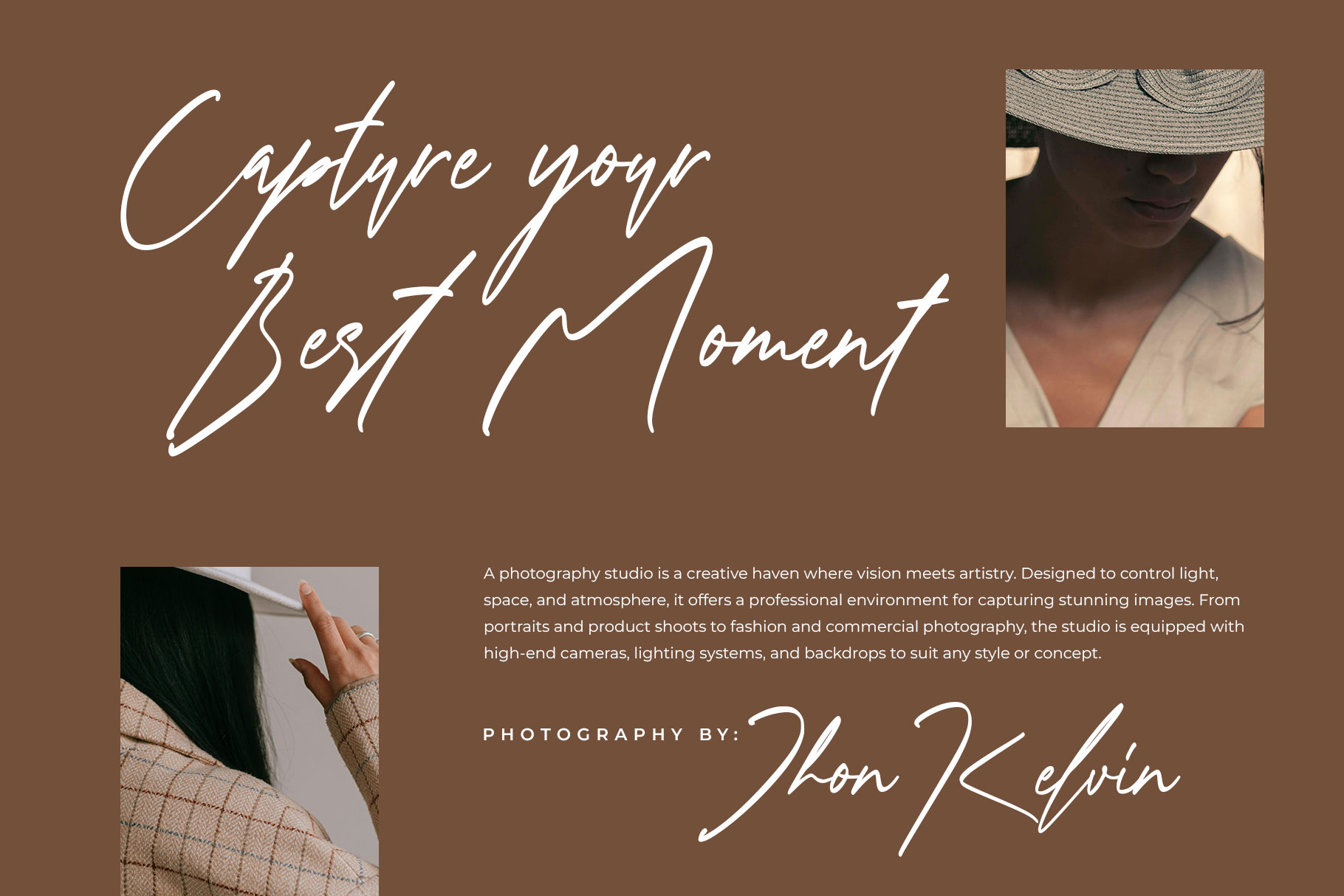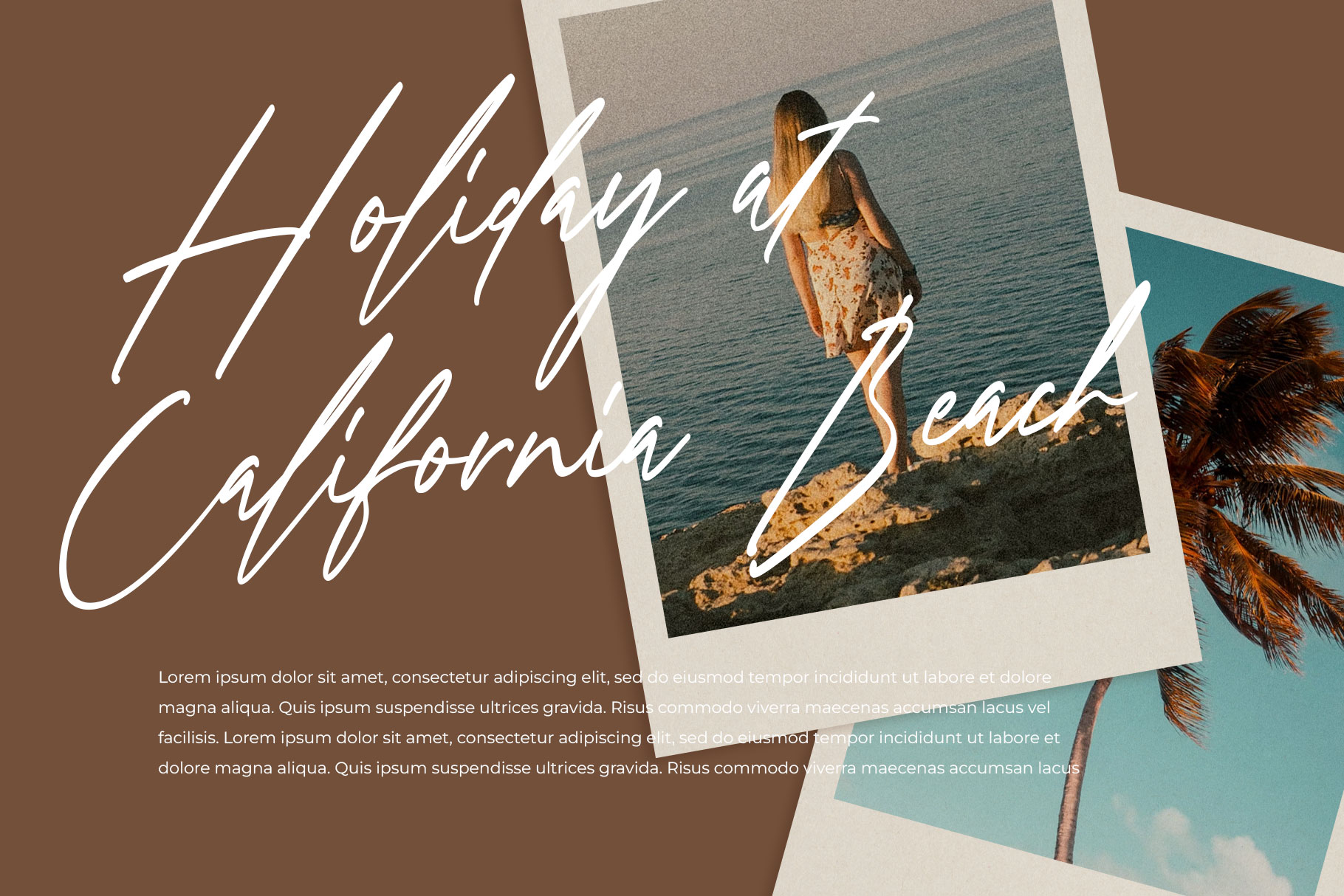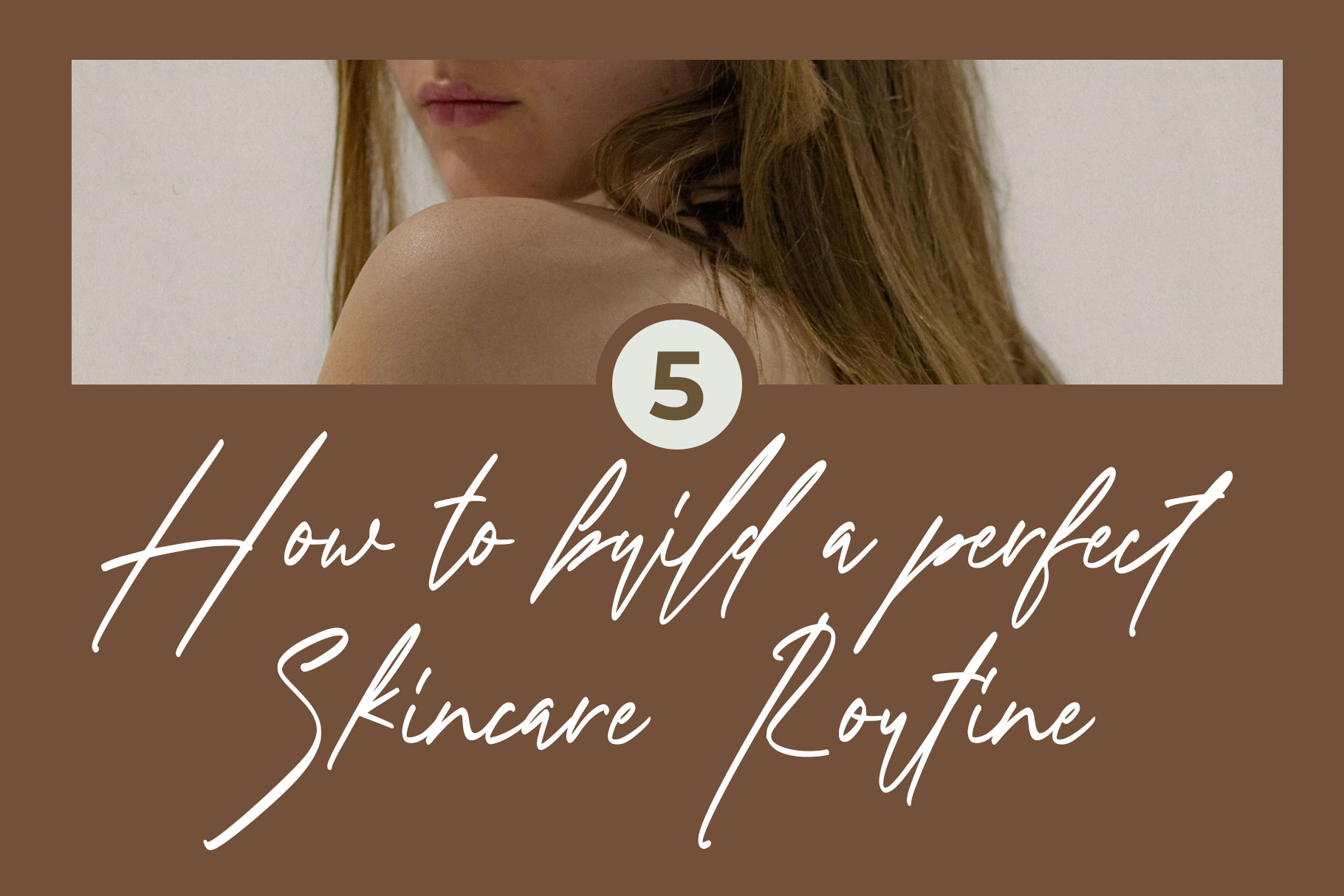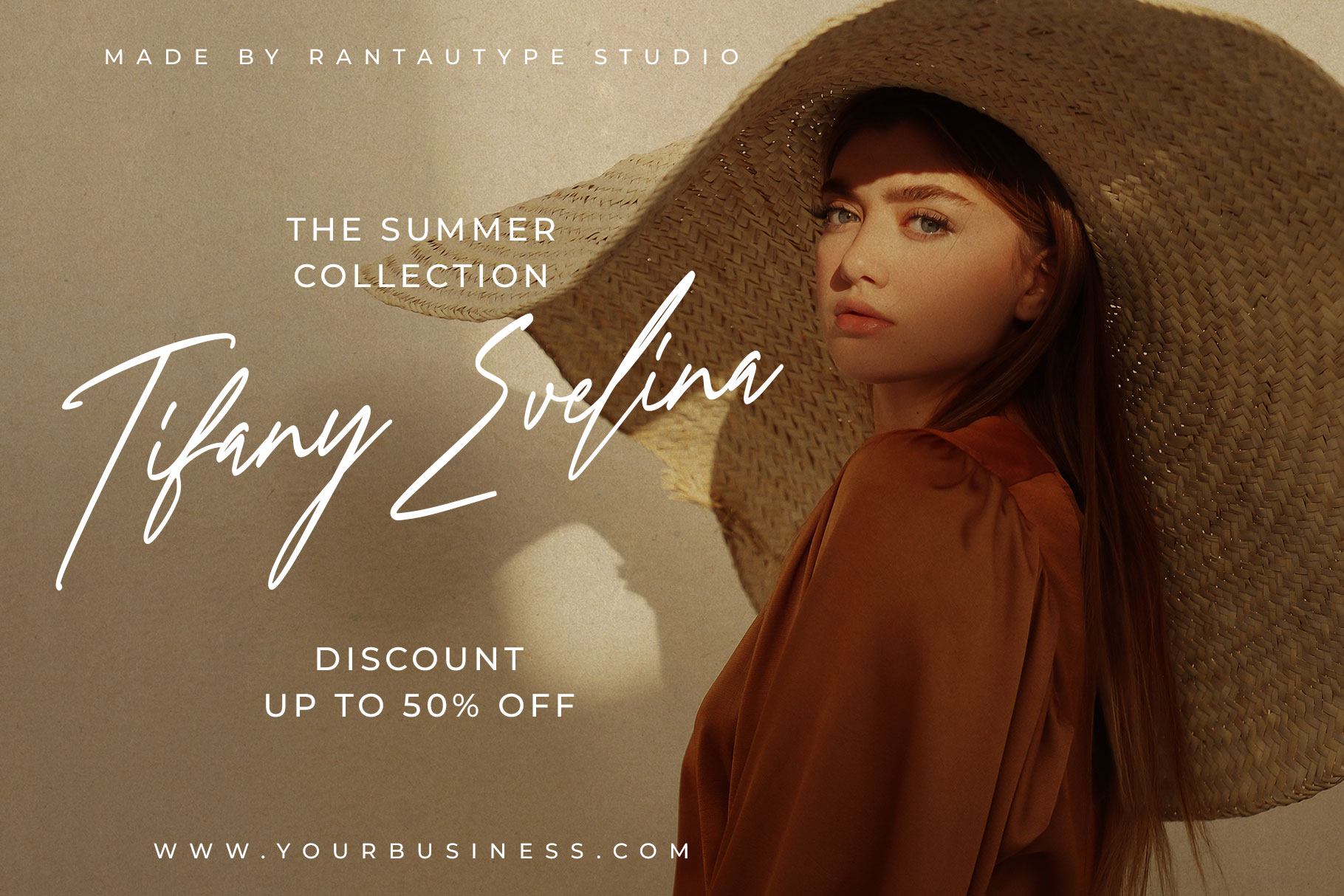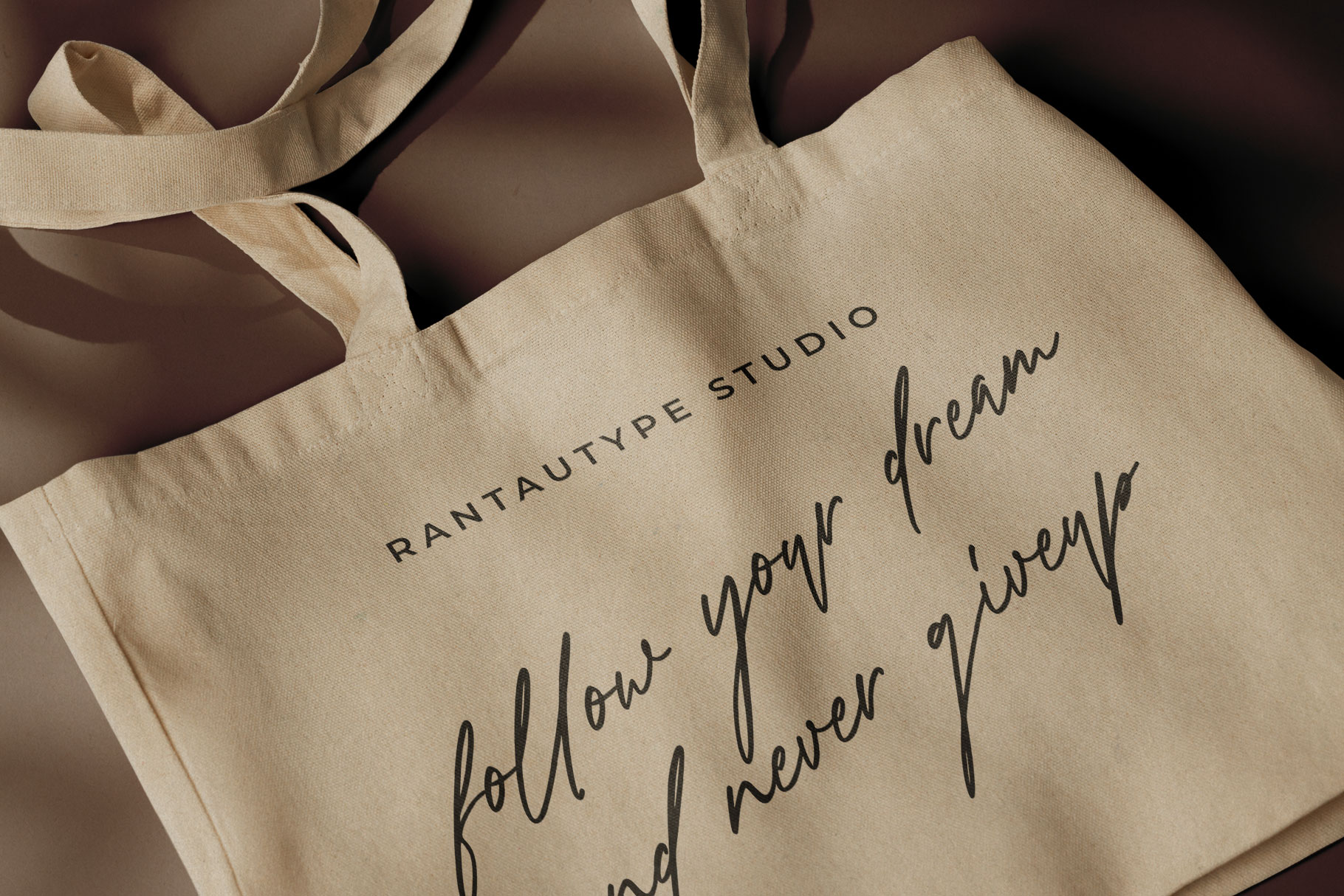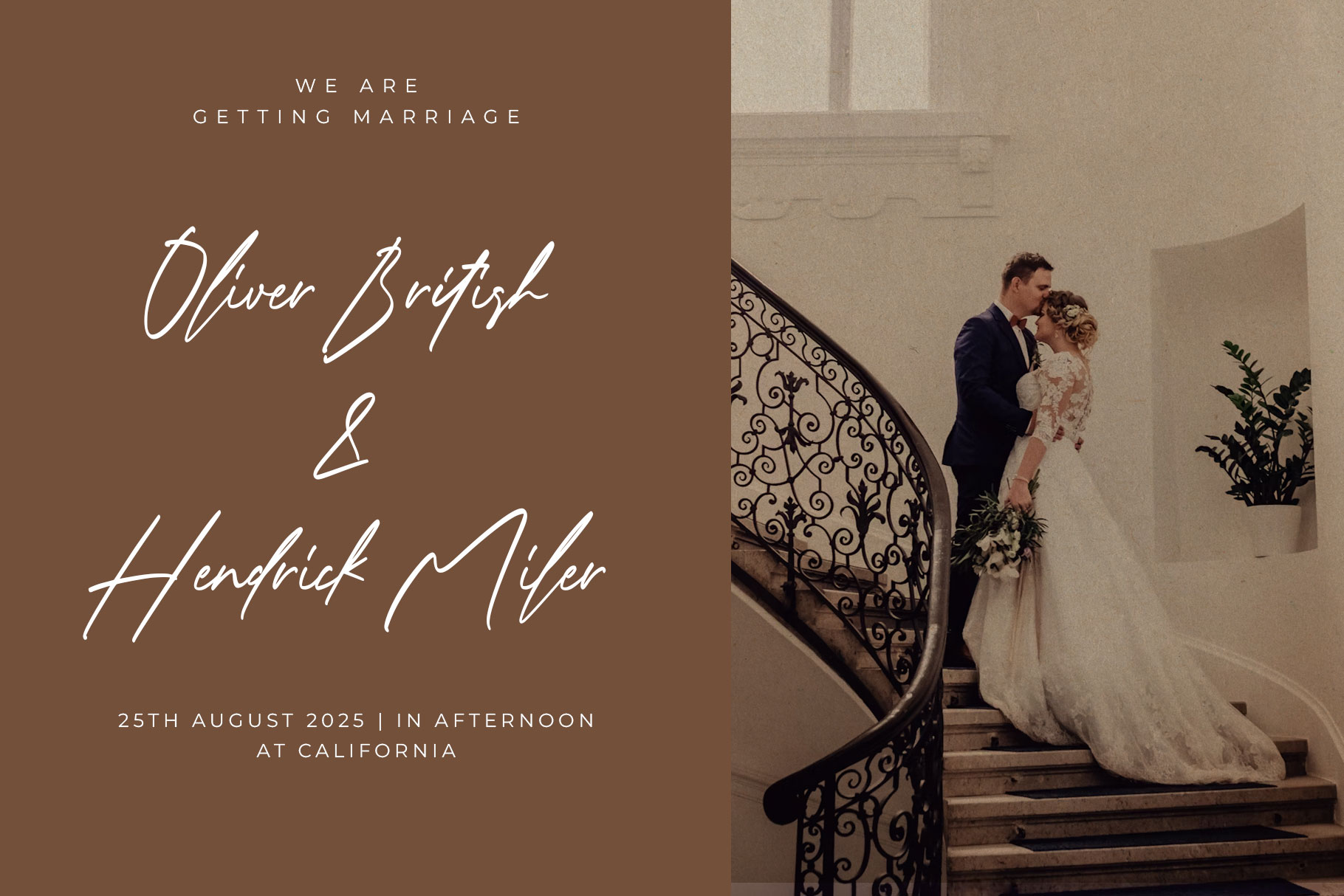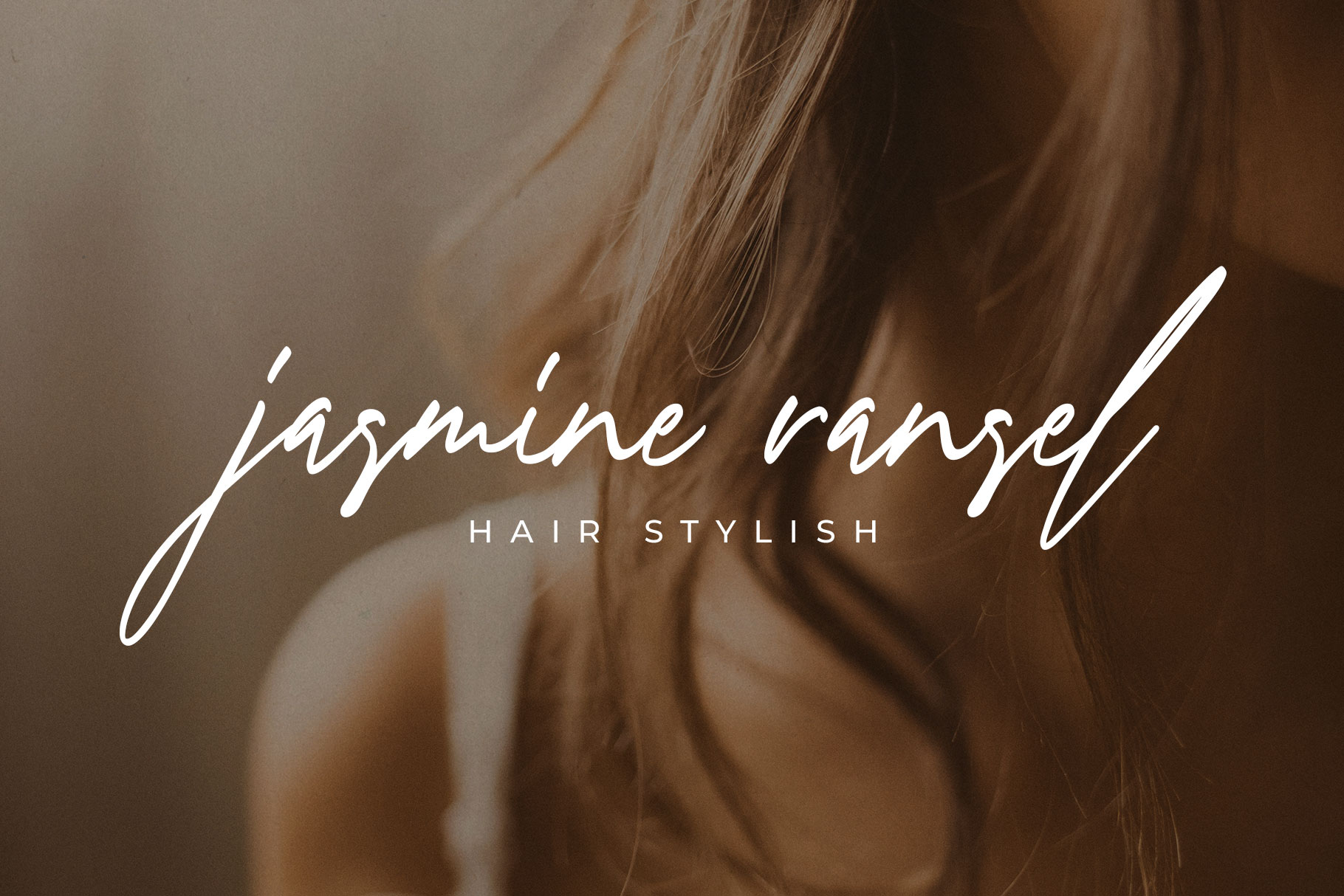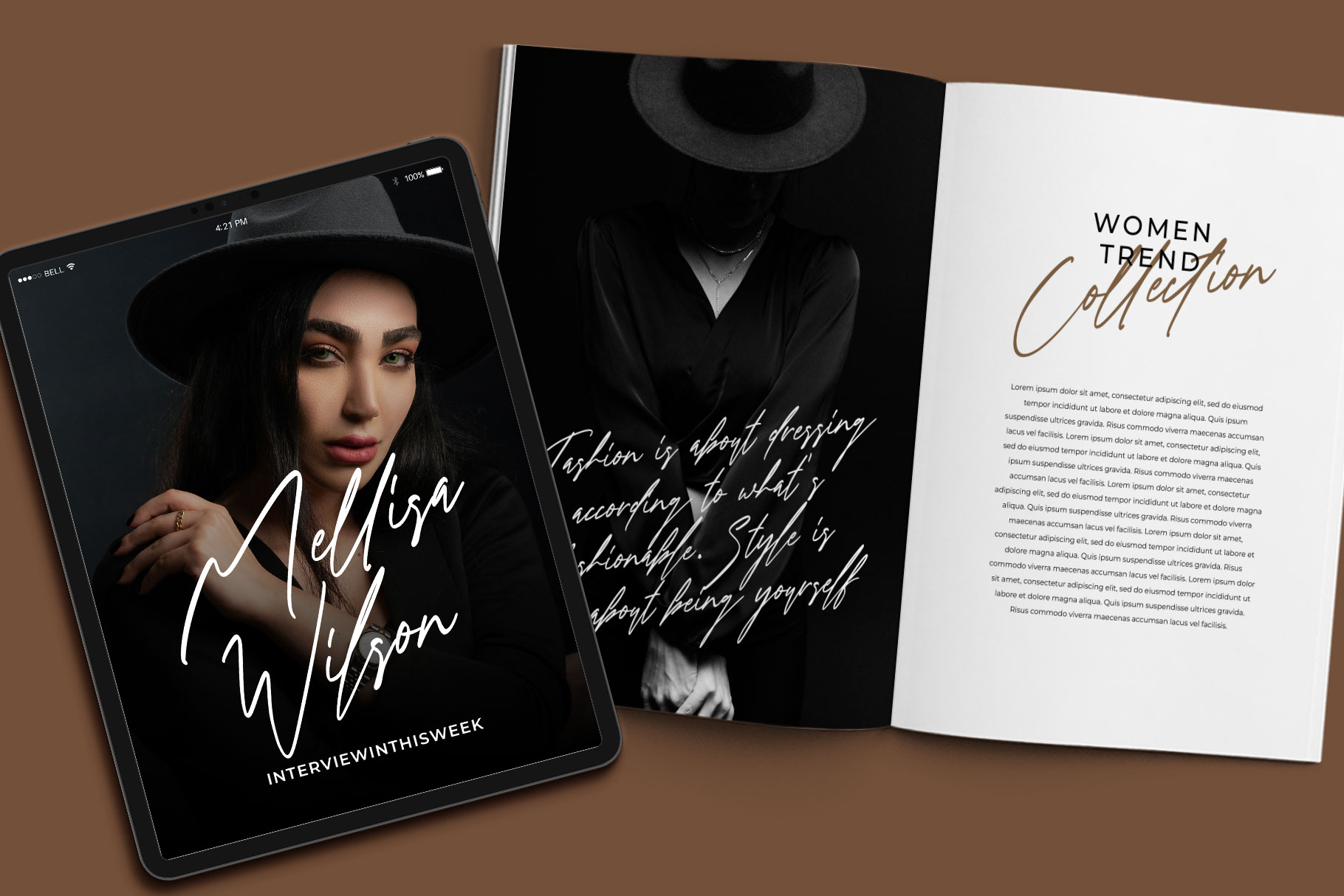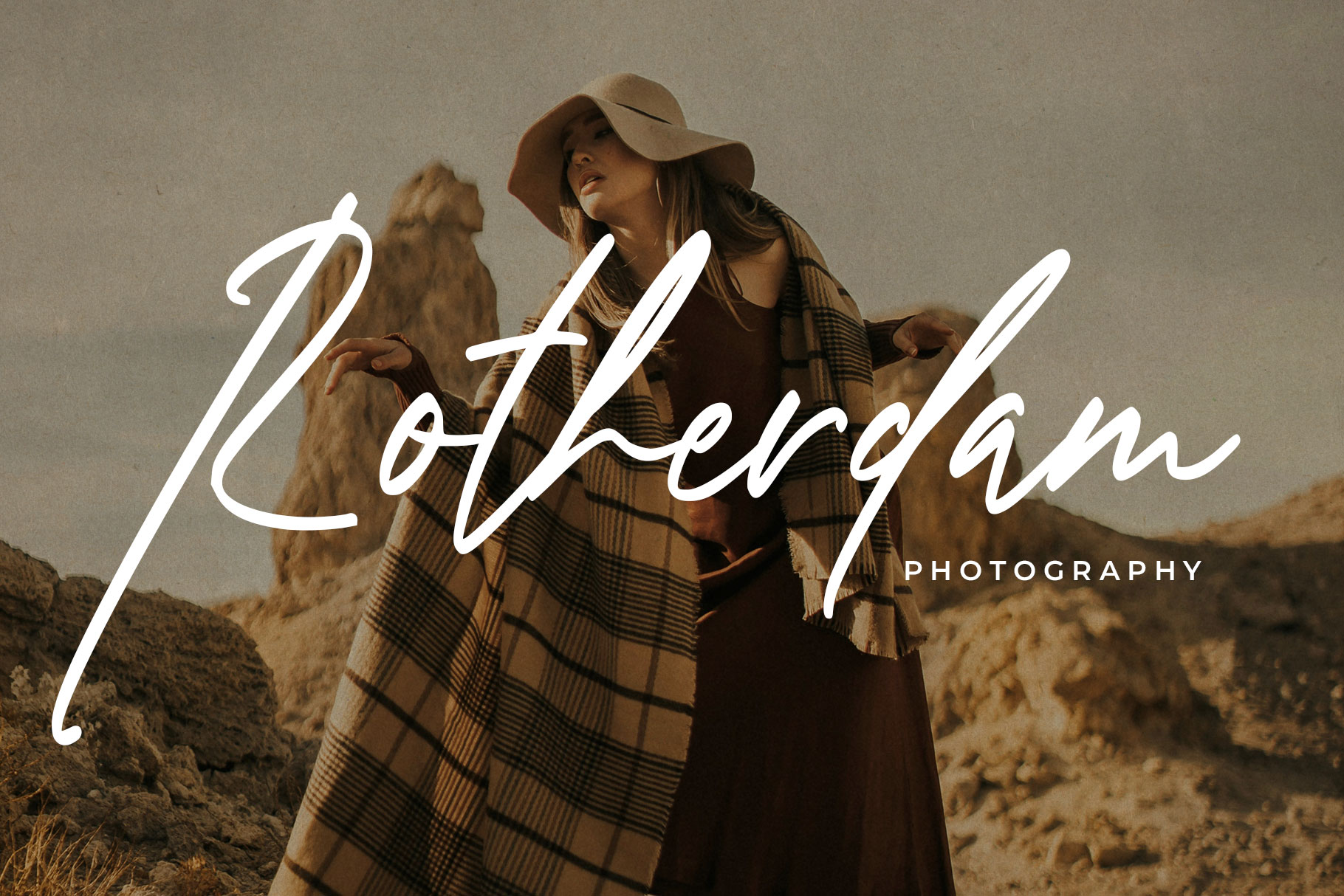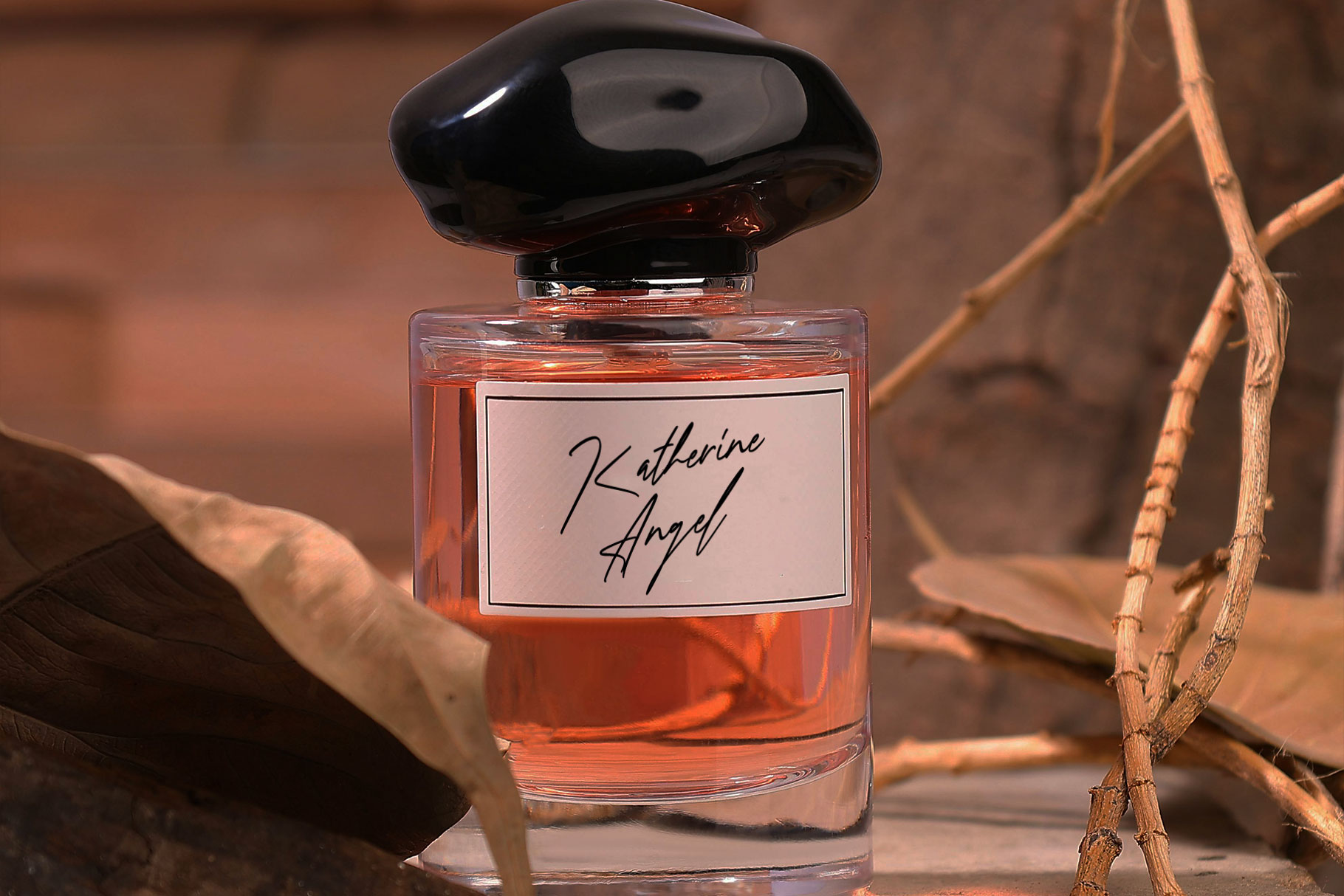
Prime Script Signature Font
Prime Script is signature font embrace grace and stylish made by rantautype studio. Prime Script is a perfectly choice for any creative endeavor, creating, modern, lifestyle design such as logotype, title, cover, branding, invitations, wedding designs, display and magazine, social media posts, advertisements, printed quotes, product packaging, corporate brand, product designs, labels, photography, watermarks, special events and any other project with modern touch.